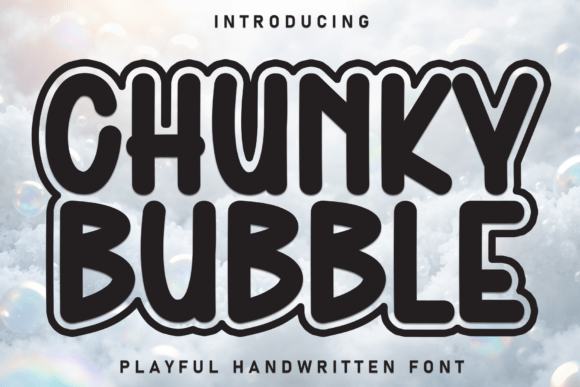
Introducing the Chunky Bubble Font: A Playful and Vibrant Typeface
Are you ready to add a dash of whimsy and fun to your creative projects? Look no further than the Chunky Bubble Font, a uniquely crafted handwritten typeface that’s bursting with luminous appeal and contagious optimism. This enchanting font is designed to inject a lively spirit into your designs, making it perfect for wedding invitations, greeting cards, and a wide range of creative endeavors.
The Magic of Chunky Bubble Font
Imagine a font that’s overflowing with playful allure and rejuvenating verve. A font that exudes an irresistible magnetism that leaps from your canvas, energizing your creative endeavors. That’s exactly what the Chunky Bubble Font offers. With its chunky, bubbly letters, this font is sure to captivate your audience and leave a lasting impression.
Unparalleled Versatility
One of the standout features of the Chunky Bubble Font is its unparalleled versatility. Whether you’re designing wedding invitations, greeting cards, or any other type of project, this font is sure to add a touch of joy and whimsy. Its playful charm makes it perfect for:
• Greeting cards and gift tags
• Blog headers and titles
• Branding and packaging design
Bringing Joy to Your Designs
The Chunky Bubble Font is more than just a typeface – it’s a way to subtly weave a tale of joy into your designs. Its vibrant, bubbly letters are sure to put a smile on your audience’s face, making it perfect for projects that require a playful touch. Whether you’re designing for a children’s brand, a crafty blog, or a wedding planning website, this font is sure to bring a sense of fun and whimsy to your work.
Why Choose the Chunky Bubble Font?
So why choose the Chunky Bubble Font for your next project? Here are just a few reasons:
• Unique and eye-catching: This font is sure to stand out from the crowd, adding a touch of personality to your designs.
• Easy to read: Despite its playful charm, the Chunky Bubble Font is easy to read, making it perfect for body text and headlines.
• Highly versatile: This font can be used for a wide range of projects, from wedding invitations to social media graphics.
• Fun and engaging: The Chunky Bubble Font is sure to add a touch of fun and whimsy to your designs, making them more engaging and shareable.
Incorporating the Chunky Bubble Font into Your Workflow
In conclusion, the Chunky Bubble Font is a playful and vibrant typeface that’s sure to add a touch of joy and whimsy to your creative projects. With its unparalleled versatility, unique charm, and ease of use, this font is perfect for designers and crafters looking to add a little excitement to their work. So why not give it a try and see the difference it can make?